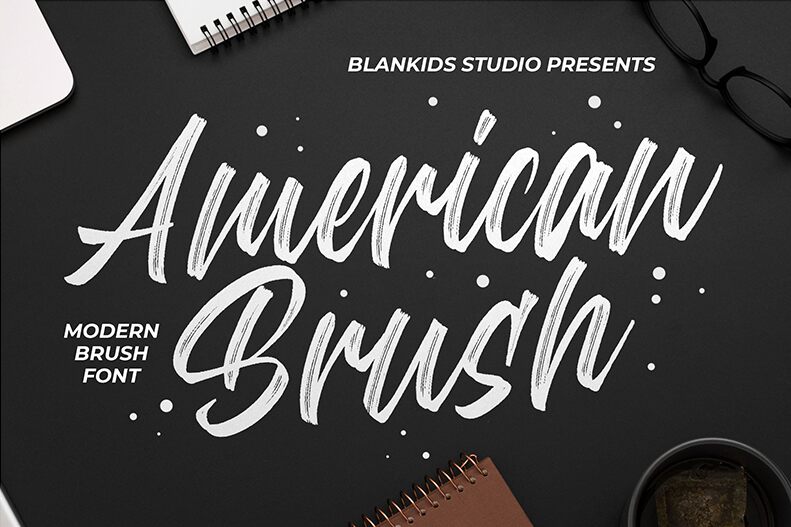
American Brush Regular
American Brush is a captivating font created by Blankids, exuding a sense of effortless elegance and artistic flair. The dynamic, hand-crafted strokes convey a distinct personality, evoking a warm, organic feel that immediately captures attention. This brush-style font's expressive flourishes and natural flow make it an ideal choice for a wide range of design projects, from branding and packaging to editorial layouts and event materials.
The versatility of American Brush allows designers to craft captivating headlines, impactful logotypes, and visually striking compositions. Its unique character lends itself beautifully to projects seeking a touch of artisanal charm, sophisticated allure, or a modern, artful aesthetic. Whether used for titling, decorative accents, or as a prominent design element, American Brush by Blankids is a font that brings a refined and distinctive touch to any creative endeavor.
American Brush by Blankids Studio